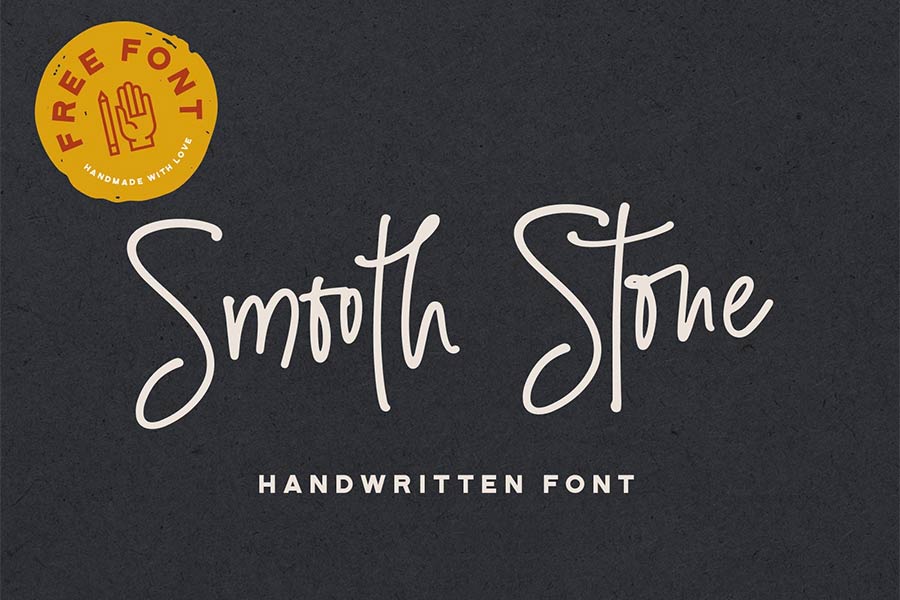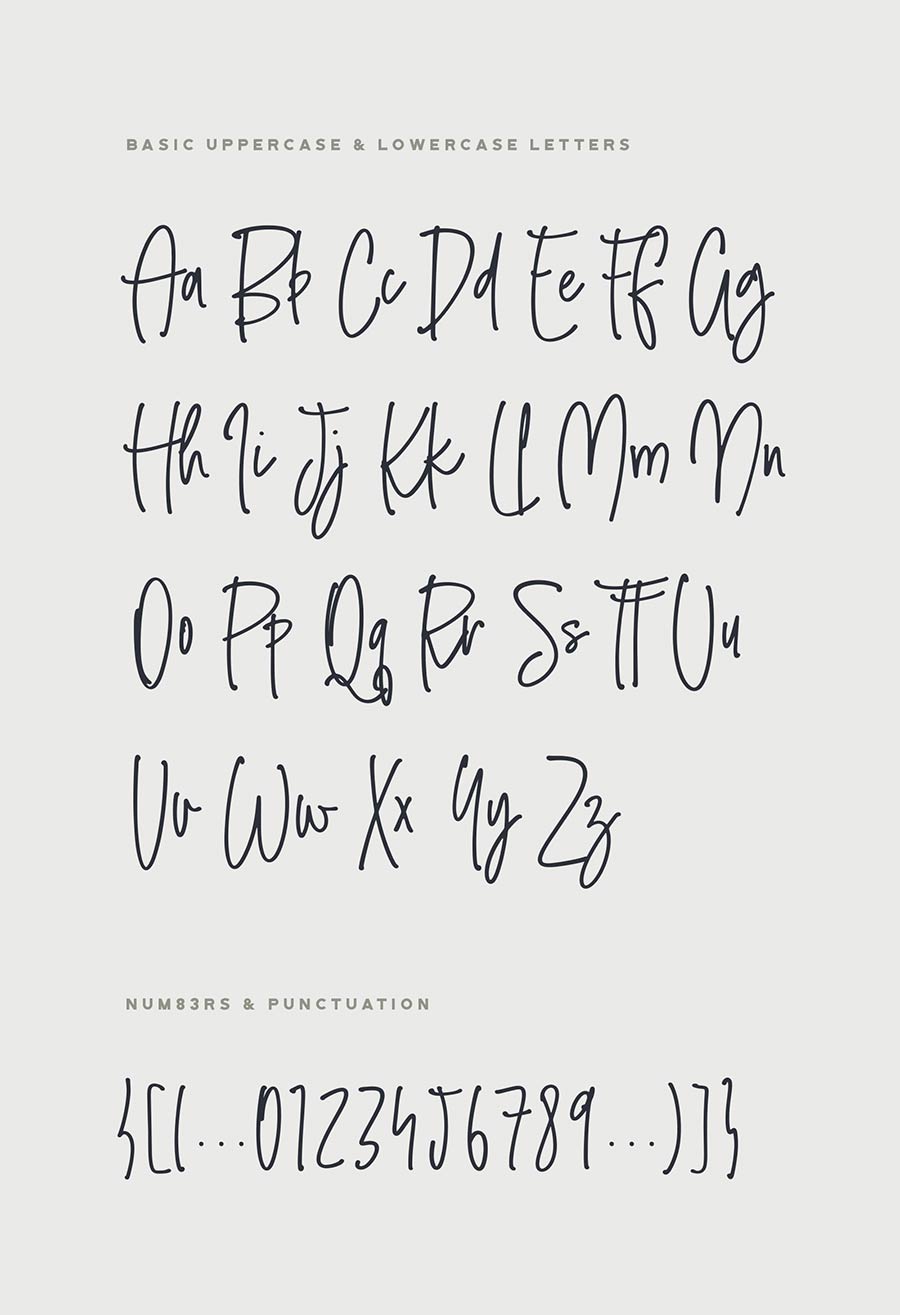
Smooth Stone is a free handwriting font that has narrower letter designs. The letters are fluidic and features smooth edges in design.
Smooth Stone comes with the standard uppercases and lowercases, numerals and punctuations. On top of that it also comes with special ligatures to make the handwriting even more natural. You can use this font for your next personal and commercial projects.